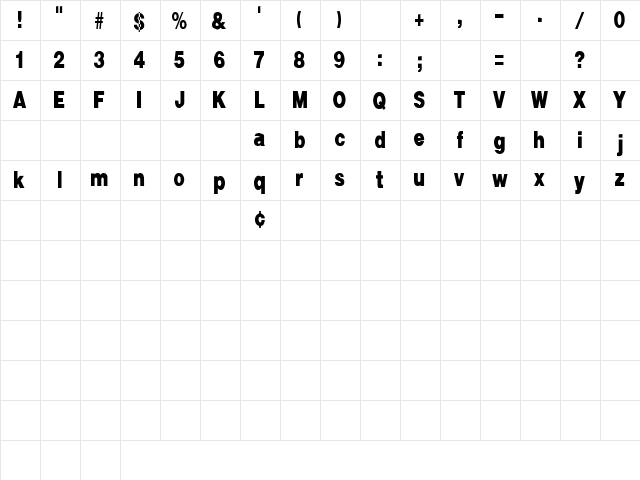
Communication 1 Regular
Design Context for Communication 1 Typeface
Communication 1 takes a measured approach to typography — its balanced proportions and neutral character make it a reliable workhorse for both digital and print work.